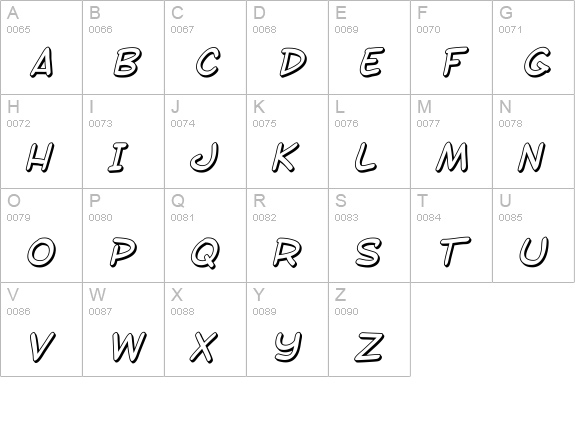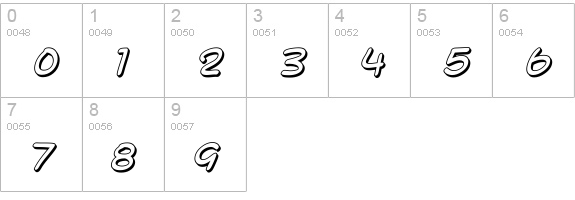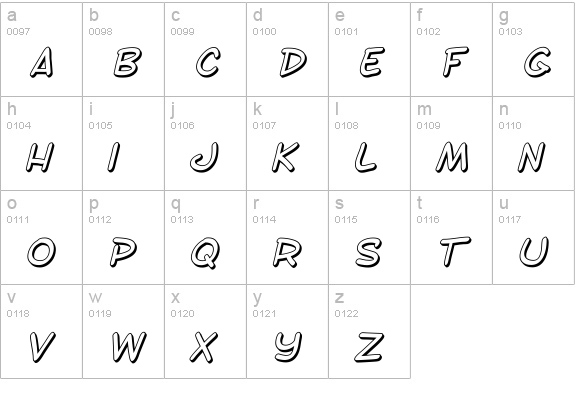
SF Toontime Shaded Italic Font Details
SF Toontime Shaded Italic is a distinctive, italic variant in the SF typeface family \xE2\x80\x94 well suited to design and typography projects.
Introducing SF Toontime Shaded Italic font, a whimsical and playful typeface that brings a touch of cartoonish charm to any design project. With its unique blend of rounded edges and shaded details, this font exudes a sense of fun and lightheartedness that is sure to captivate both children and the young at heart. Whether you're looking to add a touch of creativity to a children's book, create eye-catching signage, or design a vibrant and engaging website, SF Toontime Shaded Italic font is the perfect choice. Its italicized style adds a sense of movement and dynamism, enhancing the overall visual impact of your text. But what sets SF Toontime Shaded Italic font apart is not just its captivating design; it's also the fact that it is freely available to download at FontsMarket.com. Yes, you read that right – this delightful font can be yours without any cost. With just a few clicks, you can access and unleash the creative potential of SF Toontime Shaded Italic font in all your projects. So why wait? Embrace the playful spirit and add a dash of whimsy to your designs with SF Toontime Shaded Italic font. Download it now from FontsMarket.com and let your imagination run wild. Get ready to bring a smile to your audience's faces as you effortlessly infuse your designs with a dose of Toontime magic.